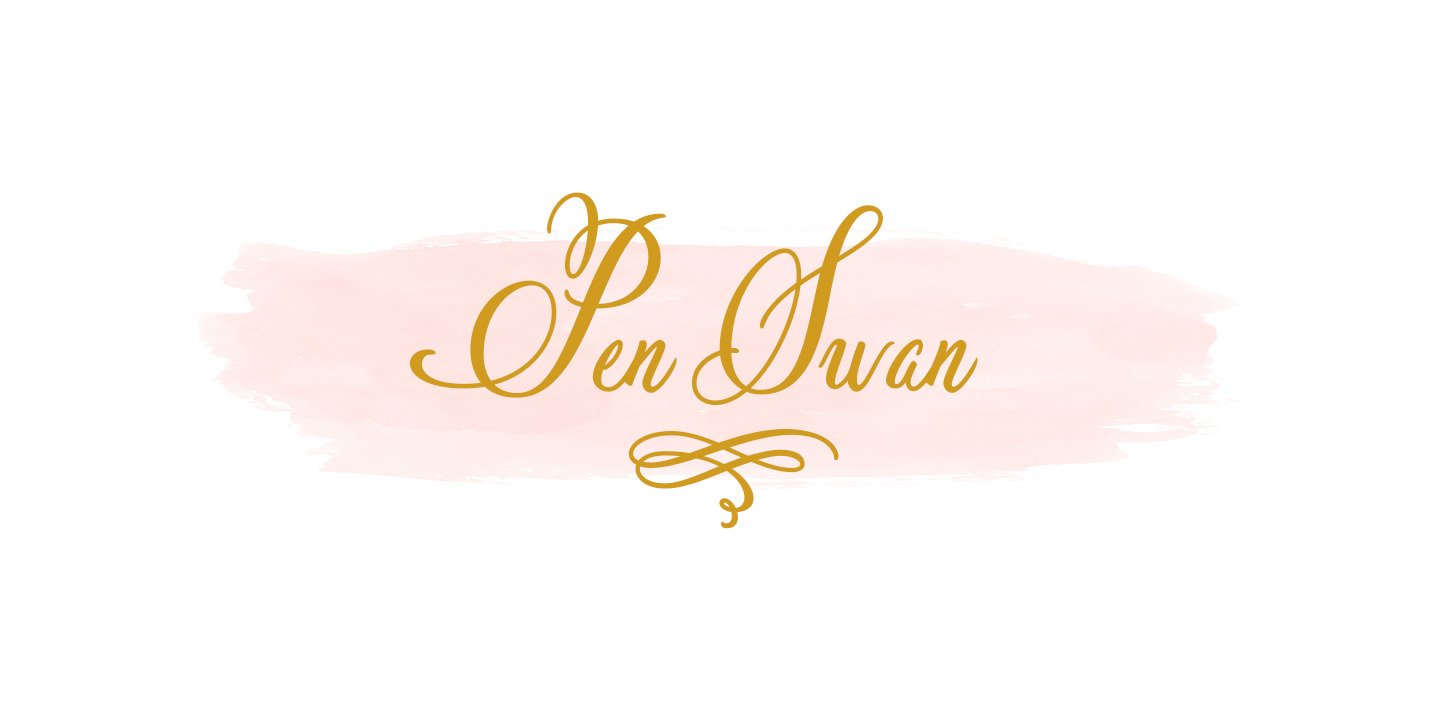
Pen Swan Font is an exquisite choice for projects that demand elegance, fluidity, and a distinctly artistic touch. It's perfectly suited for wedding invitations, personalized stationery, exquisite branding, signature logos, and any design where a handcrafted, graceful aesthetic is desired. Imagine it adorning a bespoke greeting card, adding a sophisticated flourish to a luxury product, or giving a brand's identity a unique and memorable signature. Its beautiful, flowing strokes ensure your message is conveyed with undeniable charm and a touch of refined artistry.
What makes Pen Swan Font so exciting is its captivating blend of calligraphic artistry and modern readability. Each letter flows seamlessly into the next, mimicking the natural elegance of hand-penned script, yet maintaining a clarity that makes it highly versatile. It's more than just a typeface; it’s a design element that imbues your projects with a sense of personal touch and elevated style. This font doesn't just display words; it transforms them into visual poetry, making every piece feel unique and specially crafted.
The Pen Swan Font family typically offers variations that enhance its artistic versatility. You might find a standard Regular weight that showcases its beautiful script, along with potential stylistic alternates, swashes, or ligatures that allow for even more customization and expressive typographic compositions. For designers and creators seeking to infuse their work with a truly elegant and personal handwritten feel, the Pen Swan Font Free Download offers an unparalleled starting point.